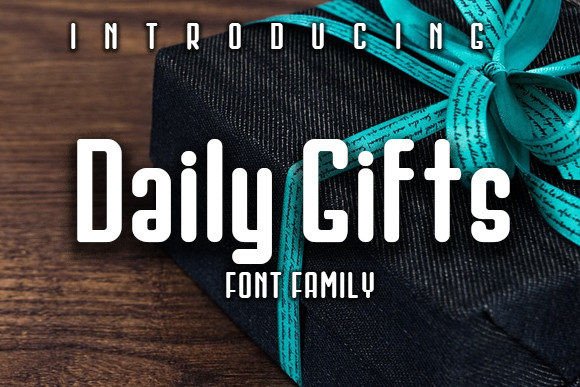
In a world craving captivating and distinctive designs, Daily Gifts Font emerges as a radiant beacon of joy and playfulness. This delightful display font, crafted by the visionary Vladimir Nikolic, is a whimsical dance of rounded characters, each stroke imbued with a hint of laughter and cheer.
Daily Gifts is not merely a font; it's an invitation to let your creativity soar. Its versatility knows no bounds, from eye-catching headlines that demand attention to vibrant posters that ignite the imagination and social media graphics that dance with infectious energy.
With Daily Gifts, the ordinary transforms into the extraordinary. Transform your designs into vibrant expressions of joy, perfect for projects that demand a playful twist. Whether you're designing a children's book that sparks wonder or creating a whimsical logo that radiates warmth, Daily Gifts is your trusted companion.
Step into a world where fonts come alive, where each letter carries a story, and every word bursts with personality. Daily Gifts is the perfect font for those who dare to be different, who embrace the power of a smile, and who see the world through the eyes of a child.
Embrace Daily Gifts, and let your designs radiate happiness, one character at a time.